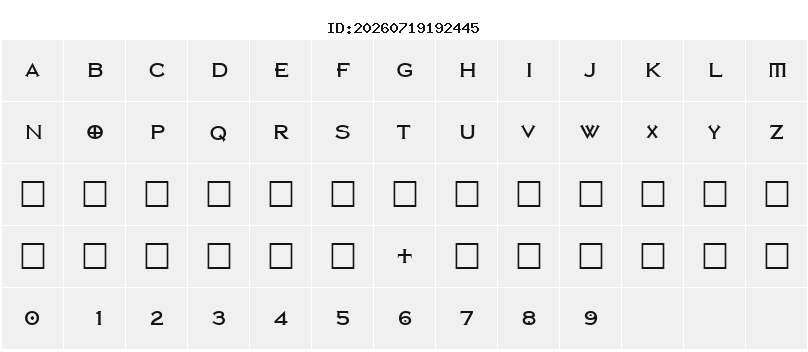
Castilla Caps Preview
• Font Name: Castilla Caps
• Font Style: Roman
• Font ID: BDS:Nirvana Roman
• Full Font Name: CASTILLA CAPS REGULAR
• Version: 1.0 Thu Jun 30 02:29:48 1994
• PostScript Name: Nirvana-Roman
• Character Count: 75
About Castilla Caps.ttf
Castilla Caps.ttf is a modern, elegant sans-serif font designed for ultimate readability and visual harmony. Perfect for branding, headlines, web design, and print materials.